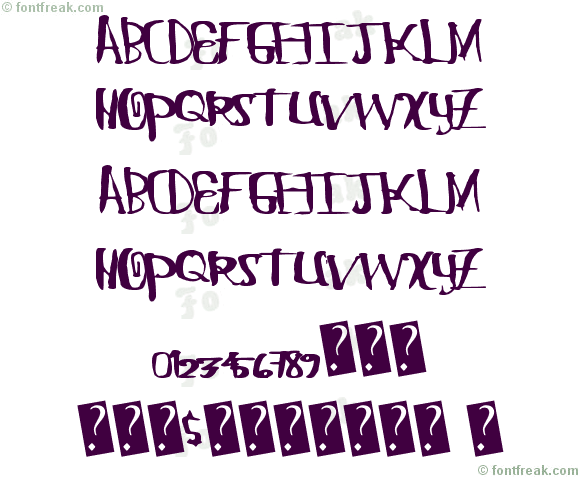
ChungFlew
About ChungFlew
ChungFlew, designed by XEROGRAPHER FONTS in 2012, is a unique display typeface that offers a playful yet bold aesthetic. This font belongs to the decorative category, featuring irregular strokes and a whimsical flair that captures attention. The uneven stroke weight adds a dynamic quality, while the moderate contrast provides a captivating visual rhythm. With its distinctive letterforms and slightly spaced characters, ChungFlew stands out in any design application.
Ideal for various creative projects, ChungFlew is particularly suited for eye-catching wedding invitations, where its playful nature can evoke joy and celebration. It also makes a fantastic choice for movie posters, lending a sense of excitement and intrigue to film titles. Restaurant menus benefit from its unique charm, drawing diners' attention and enhancing the overall dining experience. Additionally, content creators will find it perfect for social media graphics, making posts more engaging and memorable.
The target audience for ChungFlew includes graphic designers looking to infuse their projects with personality, small business owners seeking a distinctive brand identity, and content creators who want to captivate their audience. This font is versatile enough to cater to various design needs while maintaining its unique character.
What sets ChungFlew apart is its ability to blend fun with functionality. The irregularities in its design provide a sense of authenticity and creativity that resonates with viewers. Whether you’re crafting an invitation or designing promotional materials, the ChungFlew font free download offers an opportunity to elevate your project with a touch of whimsy and individuality. Embrace the uniqueness of ChungFlew and let it bring your creative visions to life.